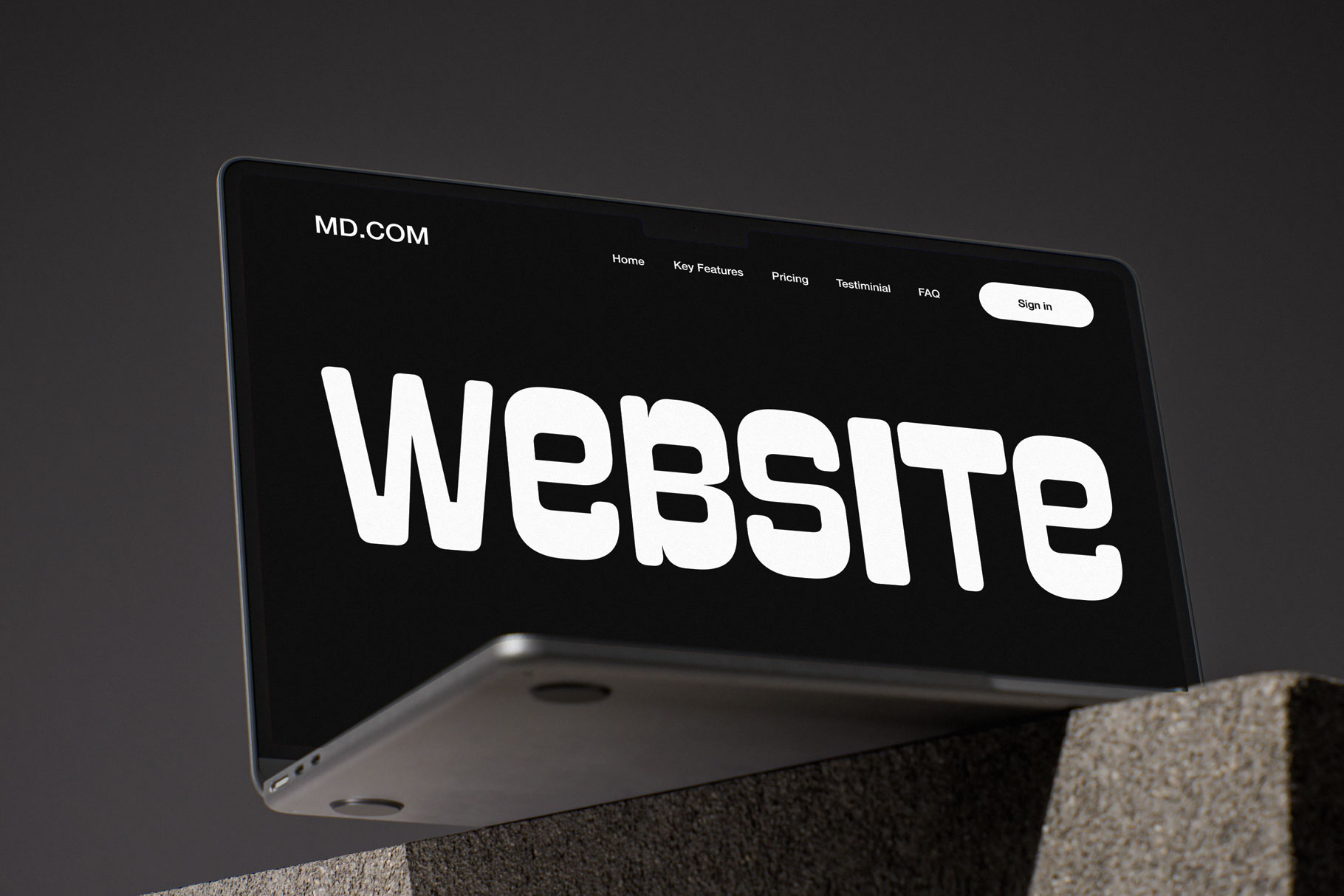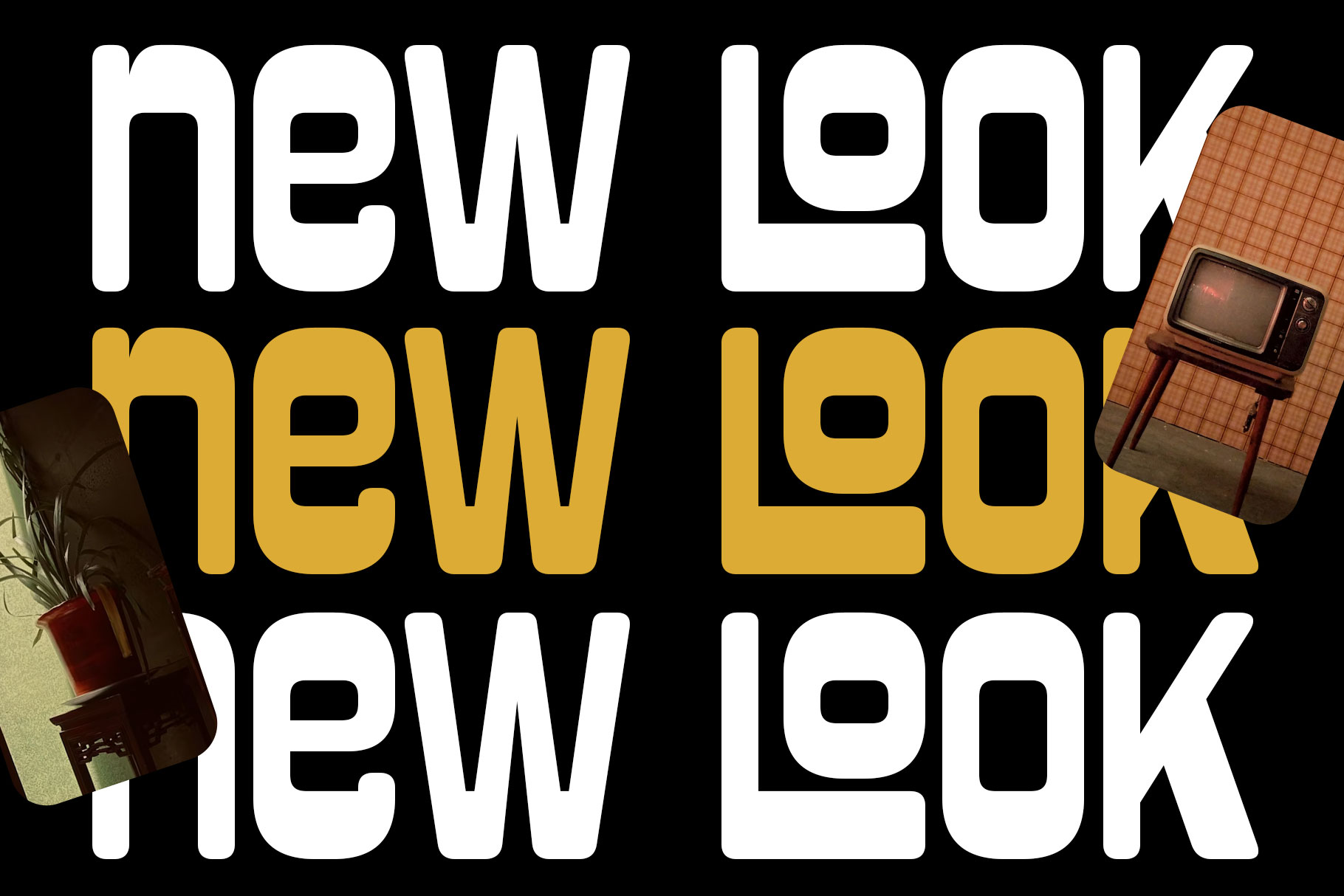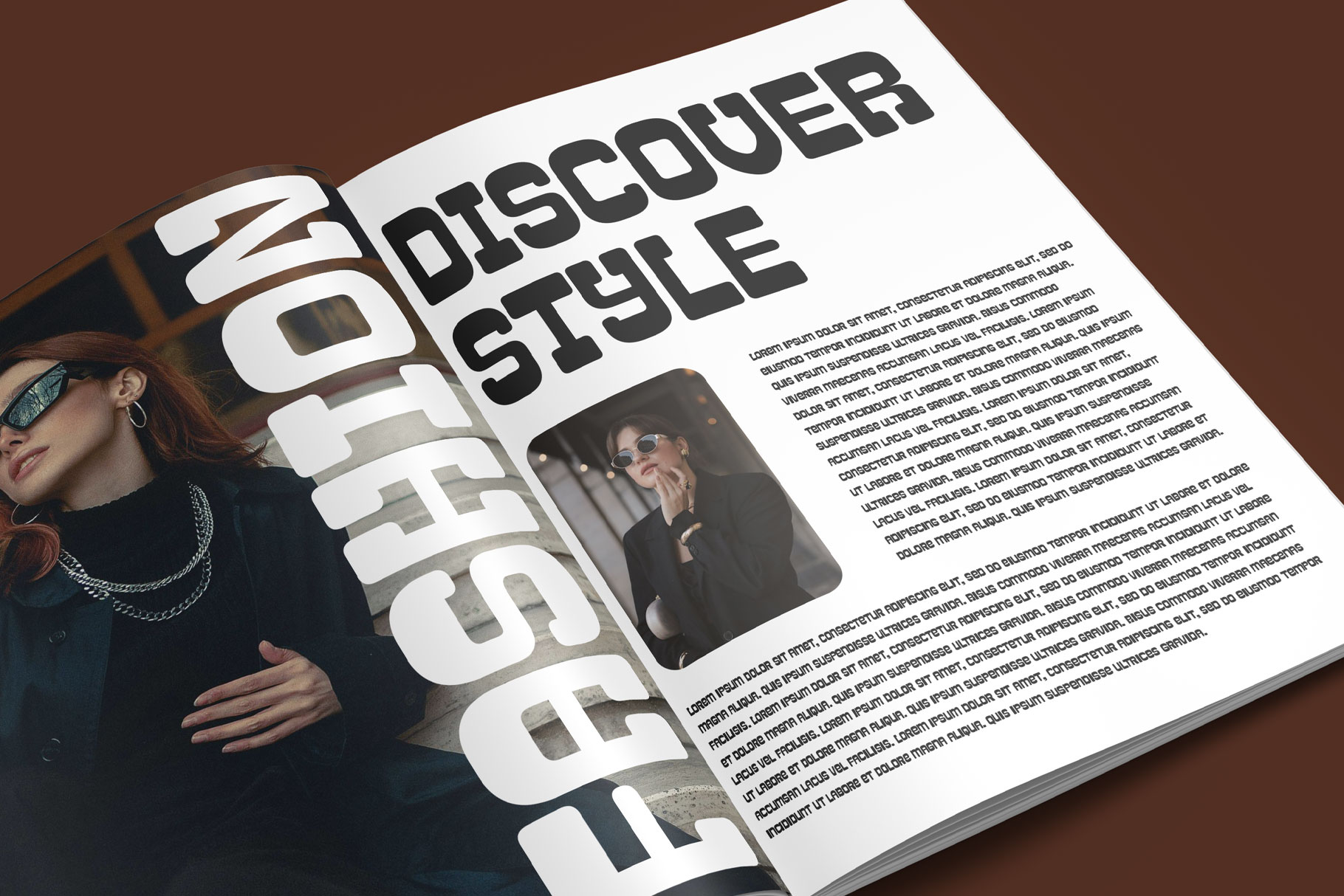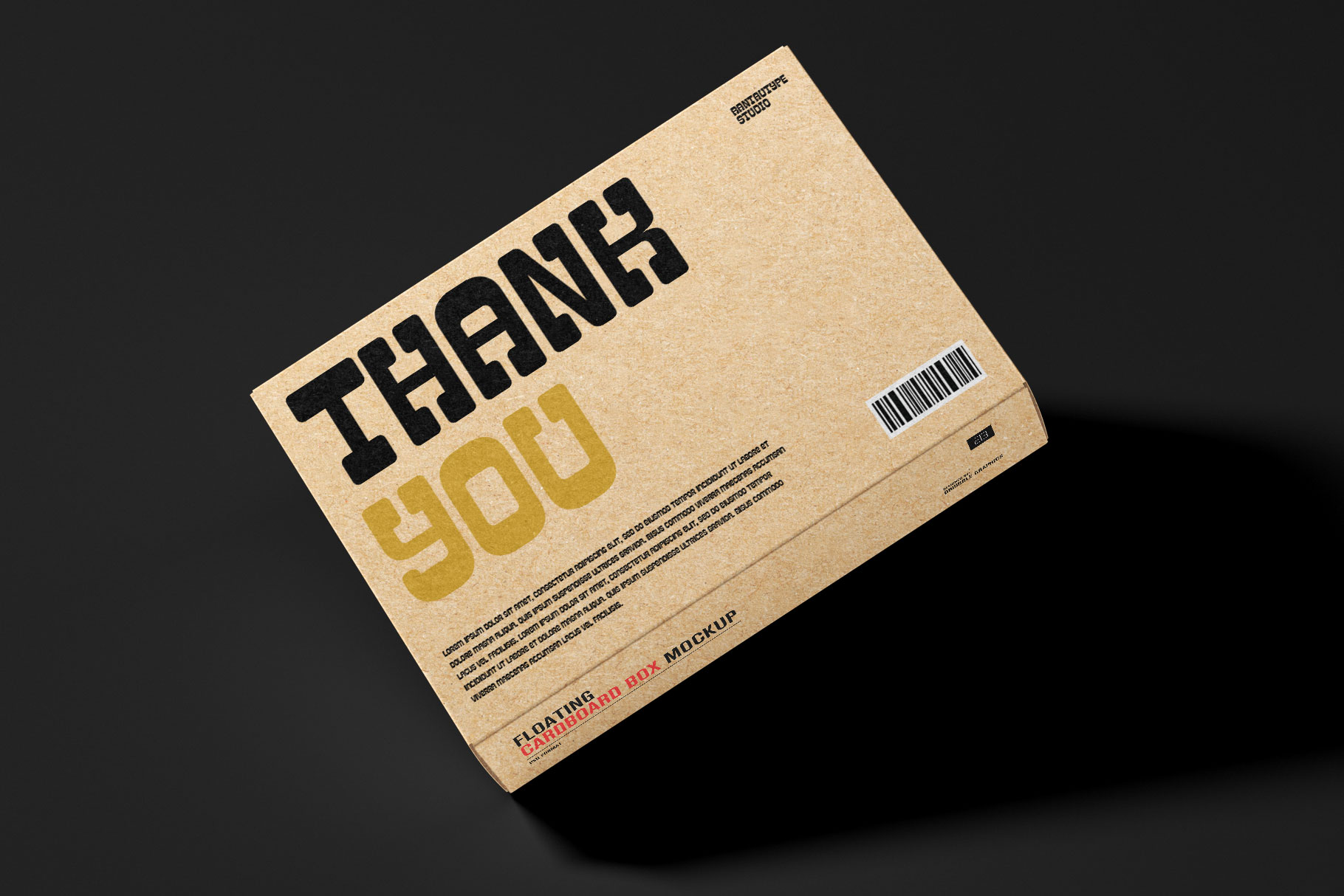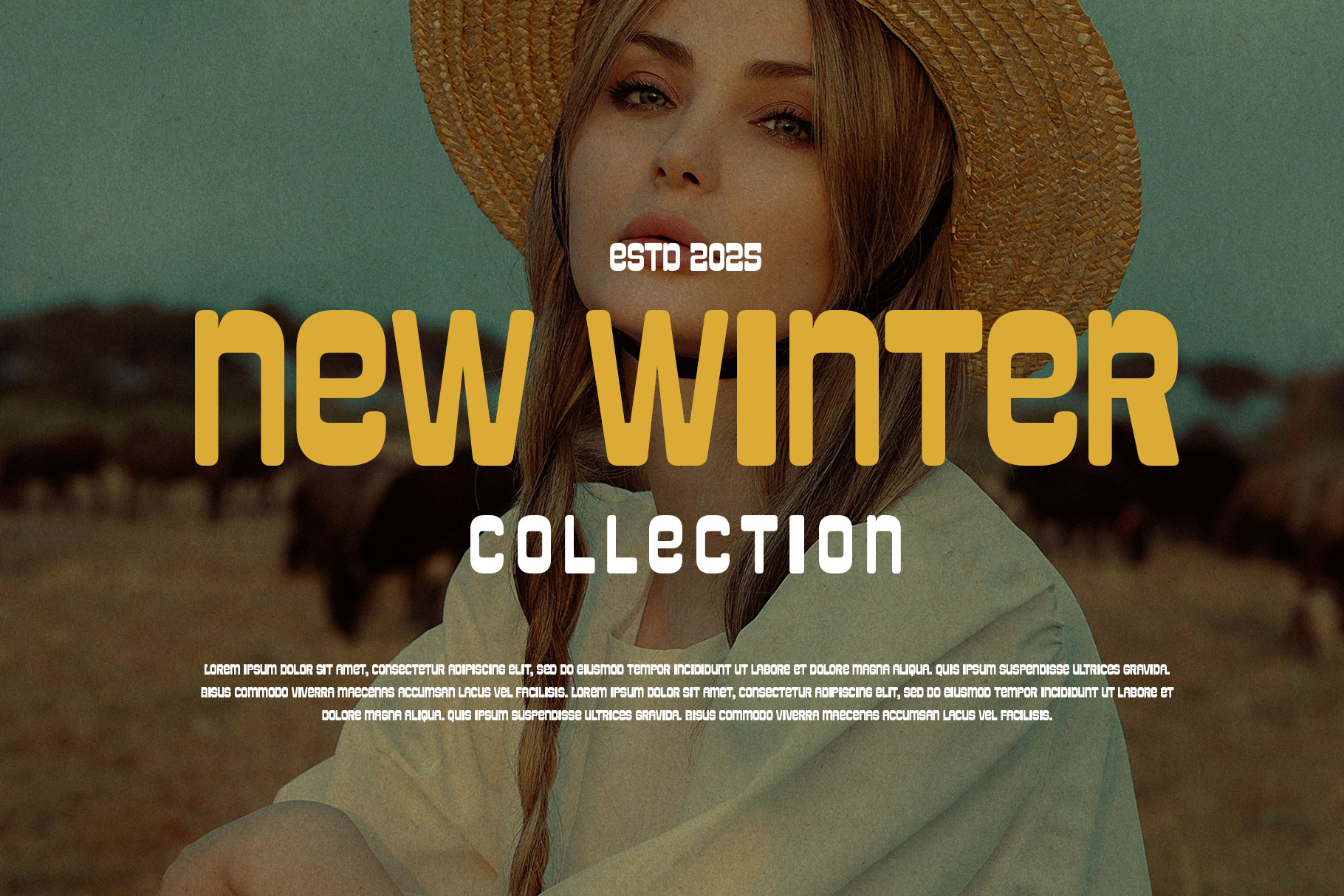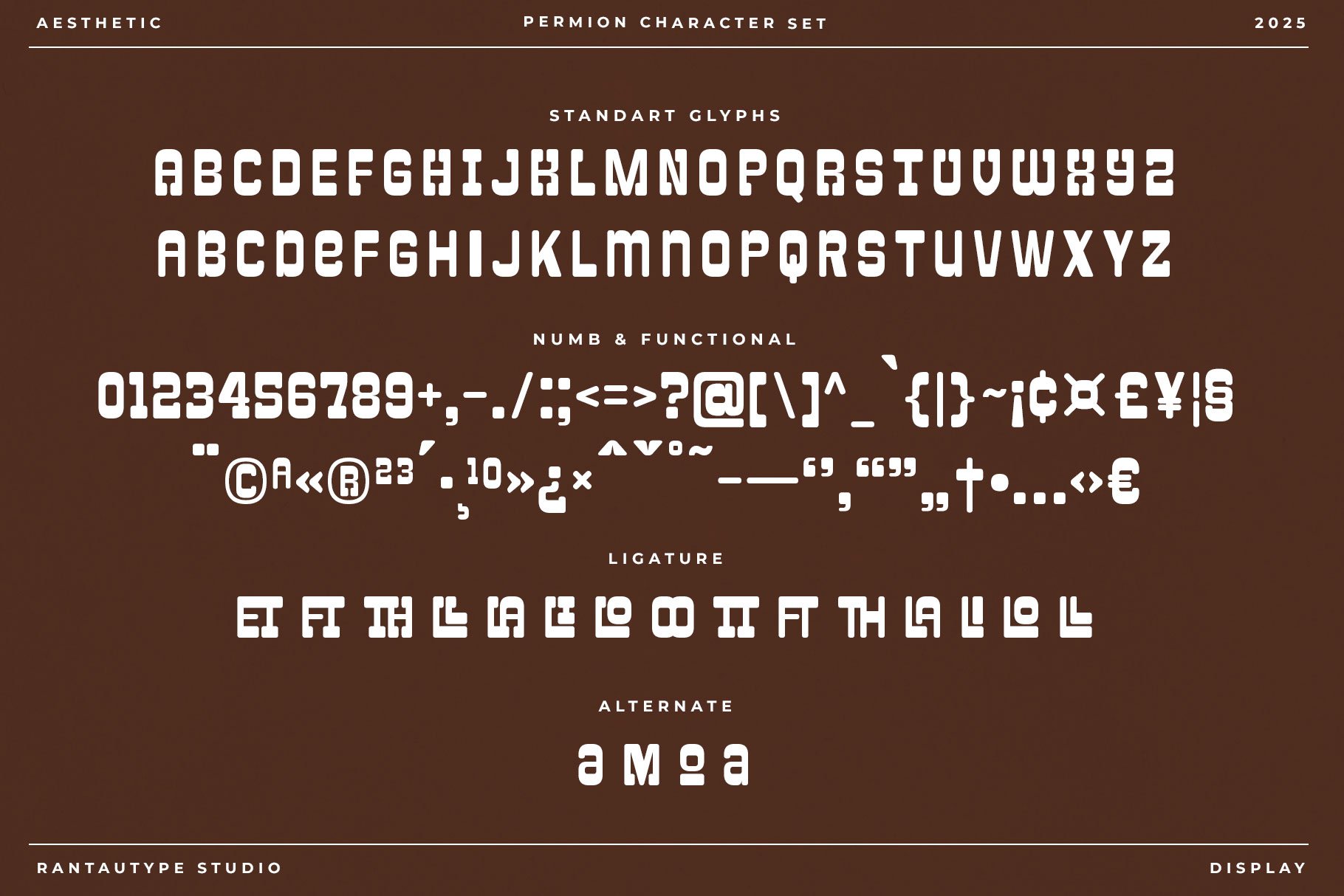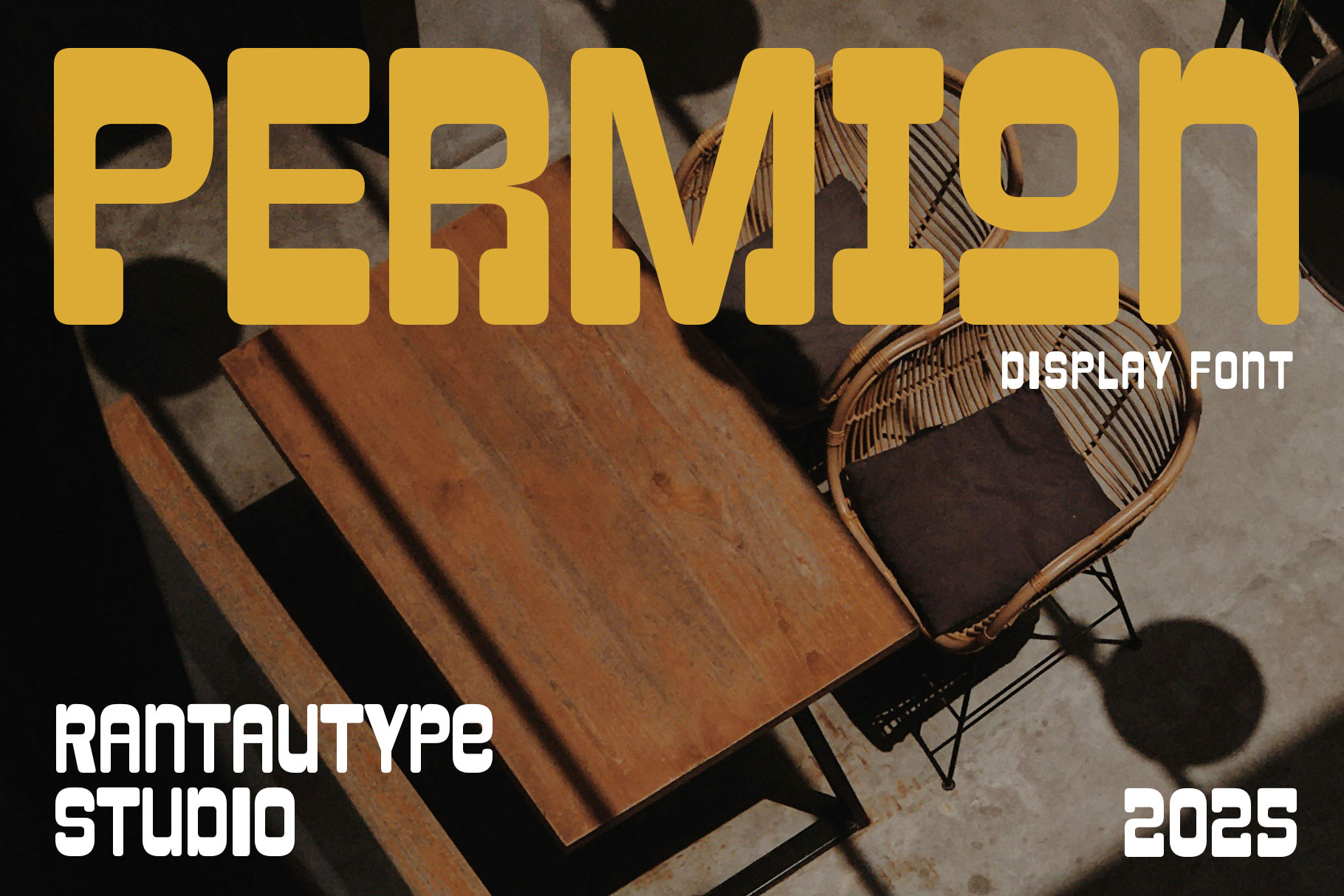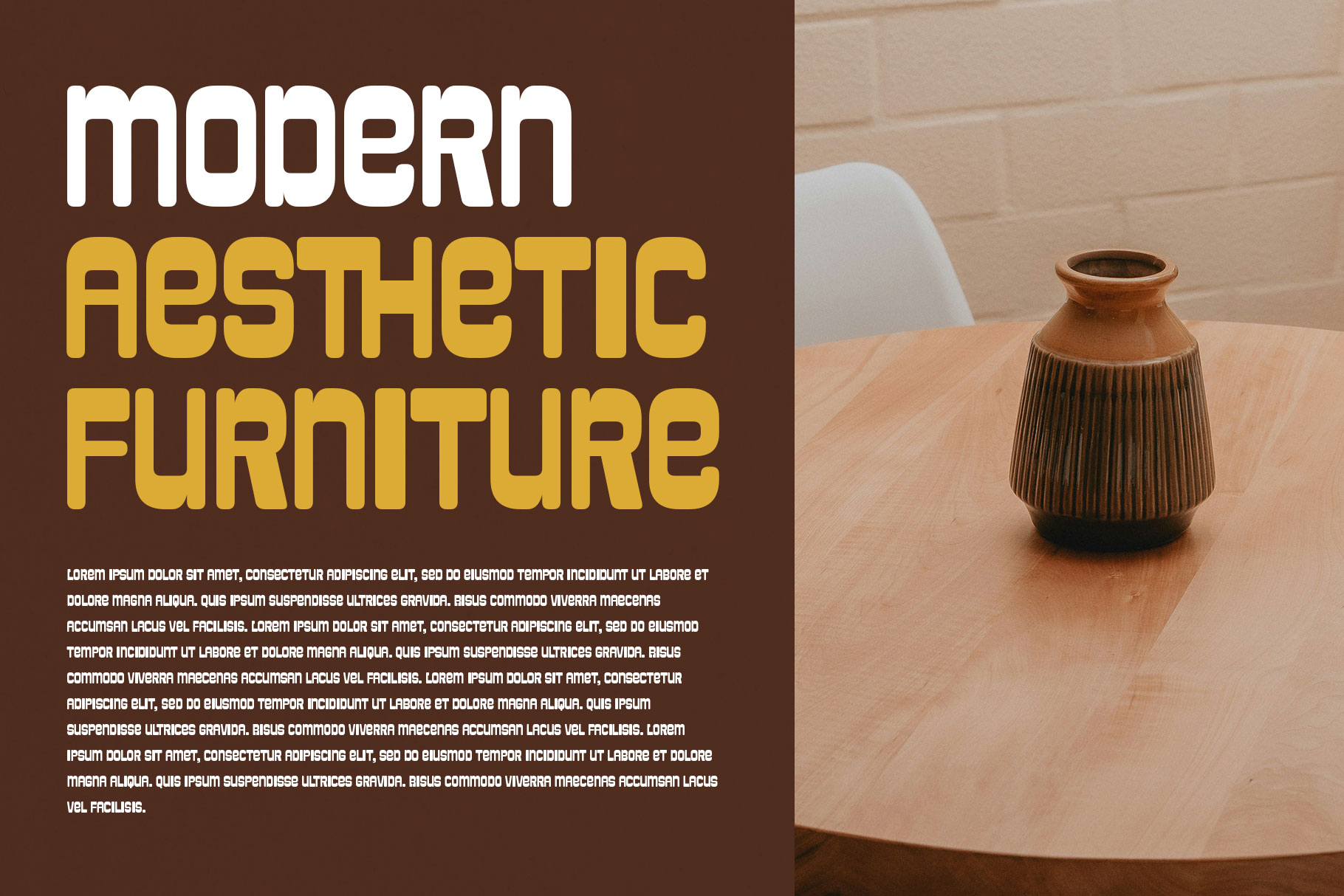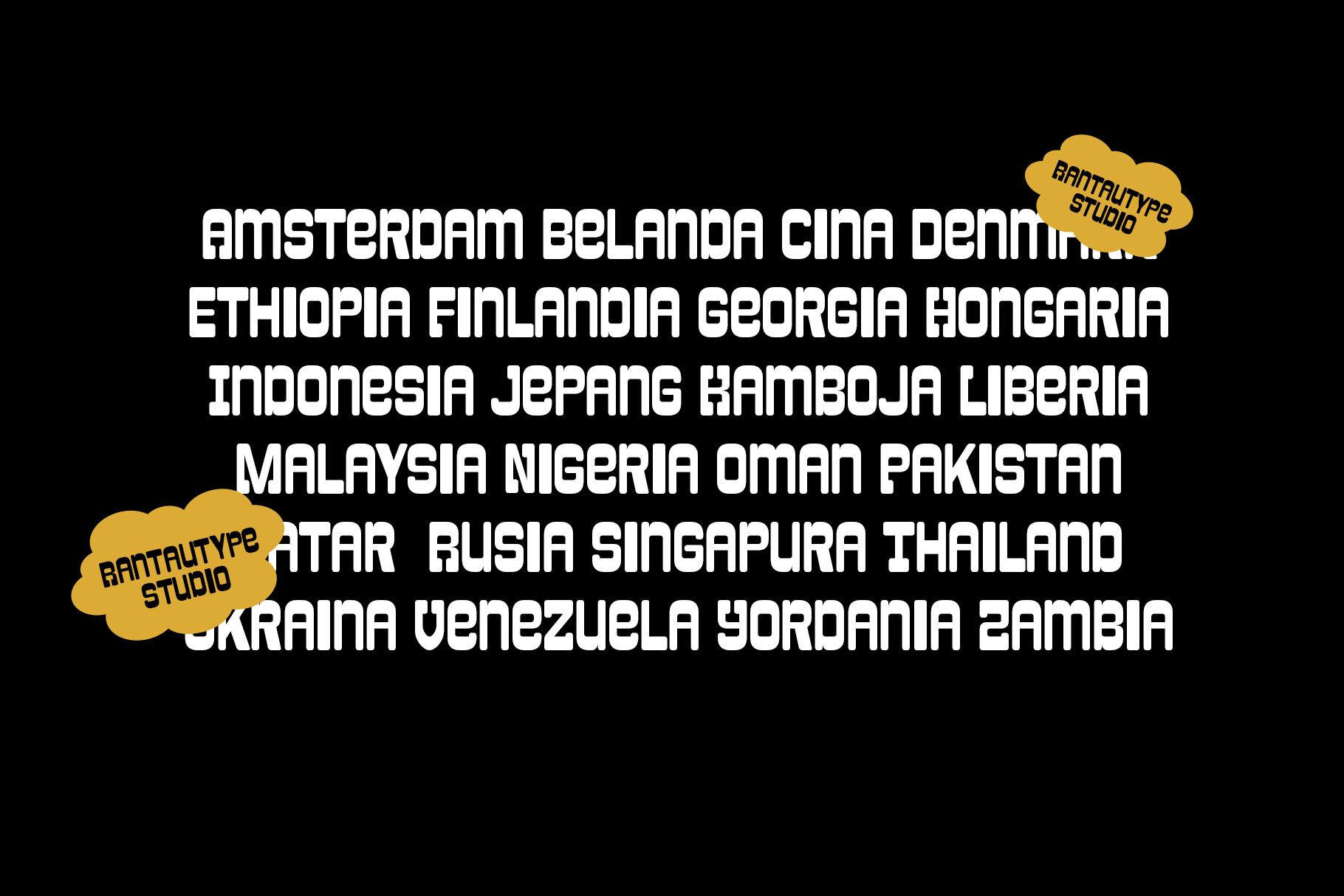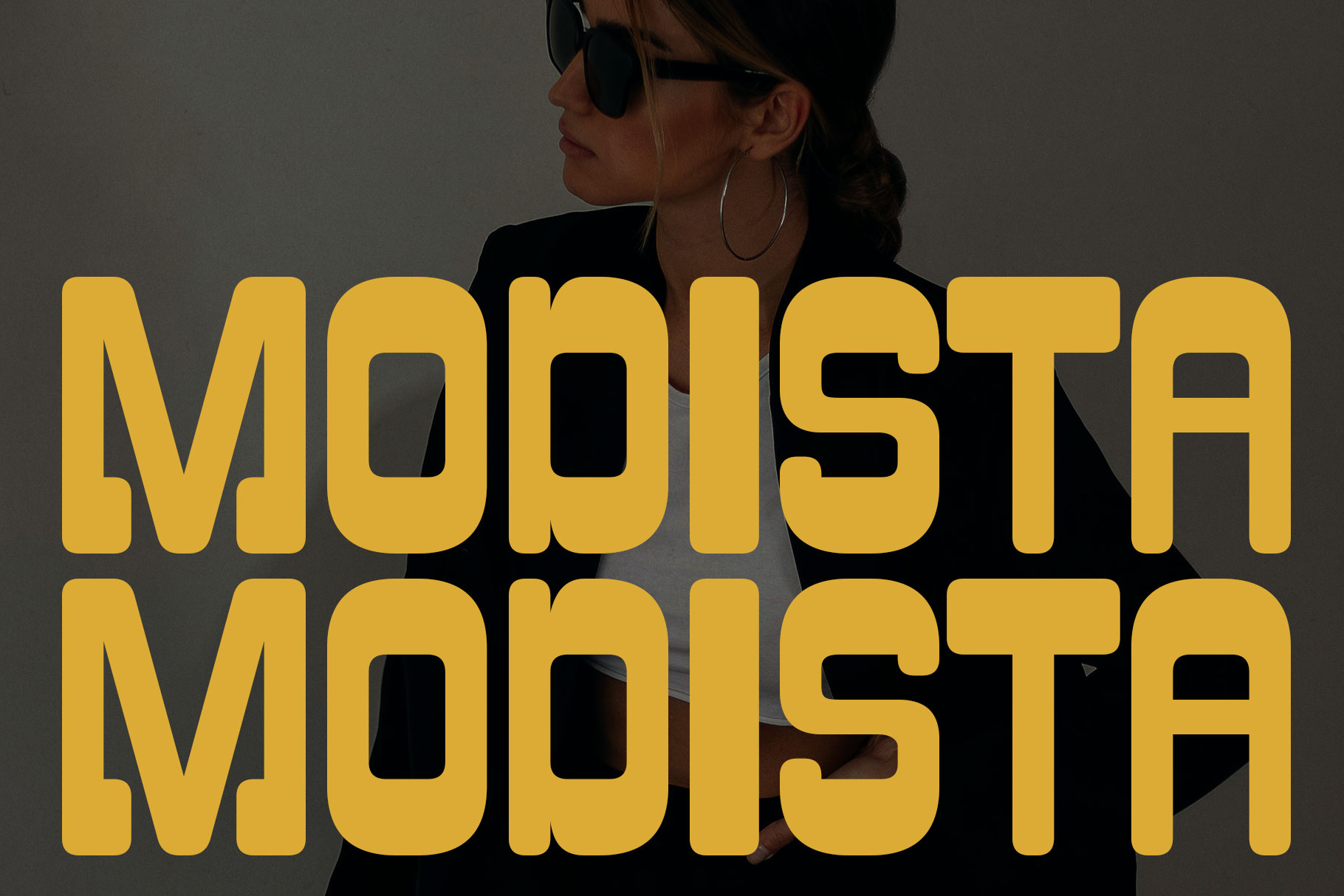
Permion Display Font
Permion is display font with aethetic shape made by rantautype studio. Permion is a perfectly choice for any creative endeavor, creating, modern, lifestyle design such as logotype, title, cover, branding, invitations, wedding designs, display and magazine, social media posts, advertisements, printed quotes, product packaging, corporate brand, product designs, labels, photography, watermarks, special events and any other project with retro touch.